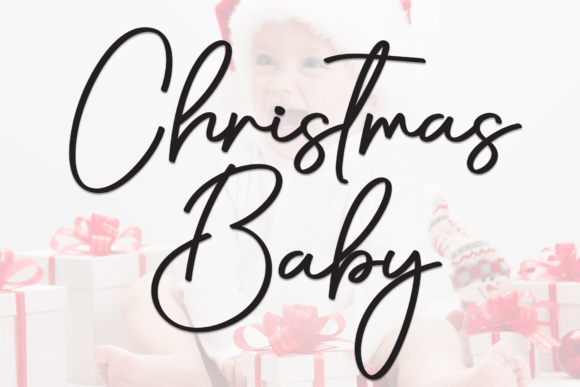
Introducing Christmas Baby Font, a captivating and enchanting addition to your font collection! This delightful script font, created by the talented Creativewhitee, is the perfect choice for anyone seeking a touch of whimsy and charm in their designs.
With its sweet and friendly handwritten style, Christmas Baby Font exudes warmth and playfulness, making it an excellent choice for a wide range of creative projects. Whether you're designing a holiday invitation, crafting a festive logo, or even creating personalized game graphics, this font is sure to elevate your work to new heights.
One of the most remarkable features of Christmas Baby Font is its versatility. It seamlessly blends with various design elements, adding a unique touch to any composition. Let your imagination run wild as you explore the endless possibilities this font offers. From greeting cards to social media posts, this font is your ticket to creating eye-catching and memorable designs.
With its natural and distinctive appearance, Christmas Baby Font evokes a sense of joy and nostalgia. Every letter is meticulously crafted, ensuring that each stroke embodies the spirit of the holiday season. Spread cheer and warmth with this font, as it effortlessly captures the essence of Christmas in every character.
But what truly sets Christmas Baby Font apart is its ability to evoke emotions. Its handwritten aesthetic creates an intimate and personal connection with your audience, instantly drawing them in. With every stroke, this font tells a story, igniting feelings of excitement, wonder, and anticipation. It's like a warm hug from Santa himself, wrapping your designs in a blanket of holiday magic.